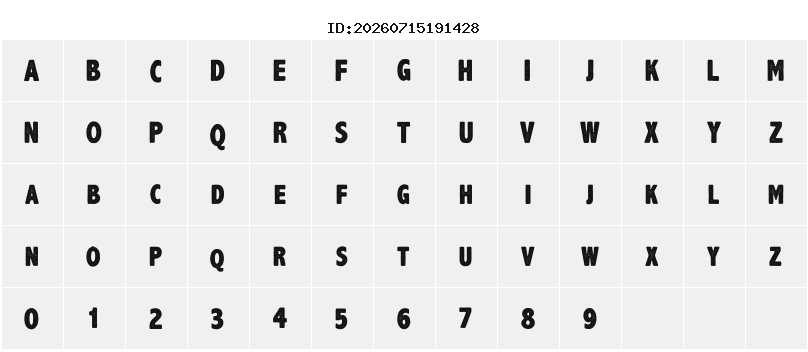
AxeHandel Preview
• Font Name: AxeHandel
• Designer: S. John Ross
About AxeHandel.ttf
AxeHandel.ttf is a modern, elegant sans-serif font designed for ultimate readability and visual harmony. Perfect for branding, headlines, web design, and print materials.